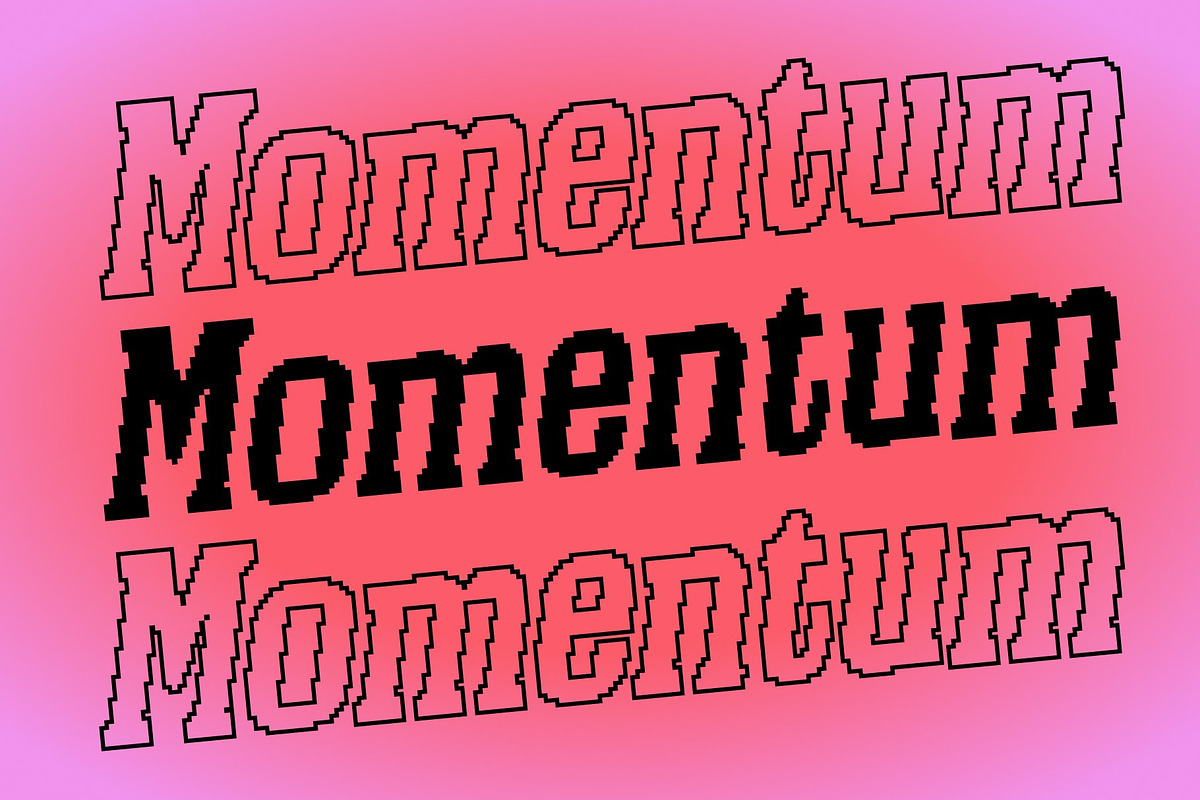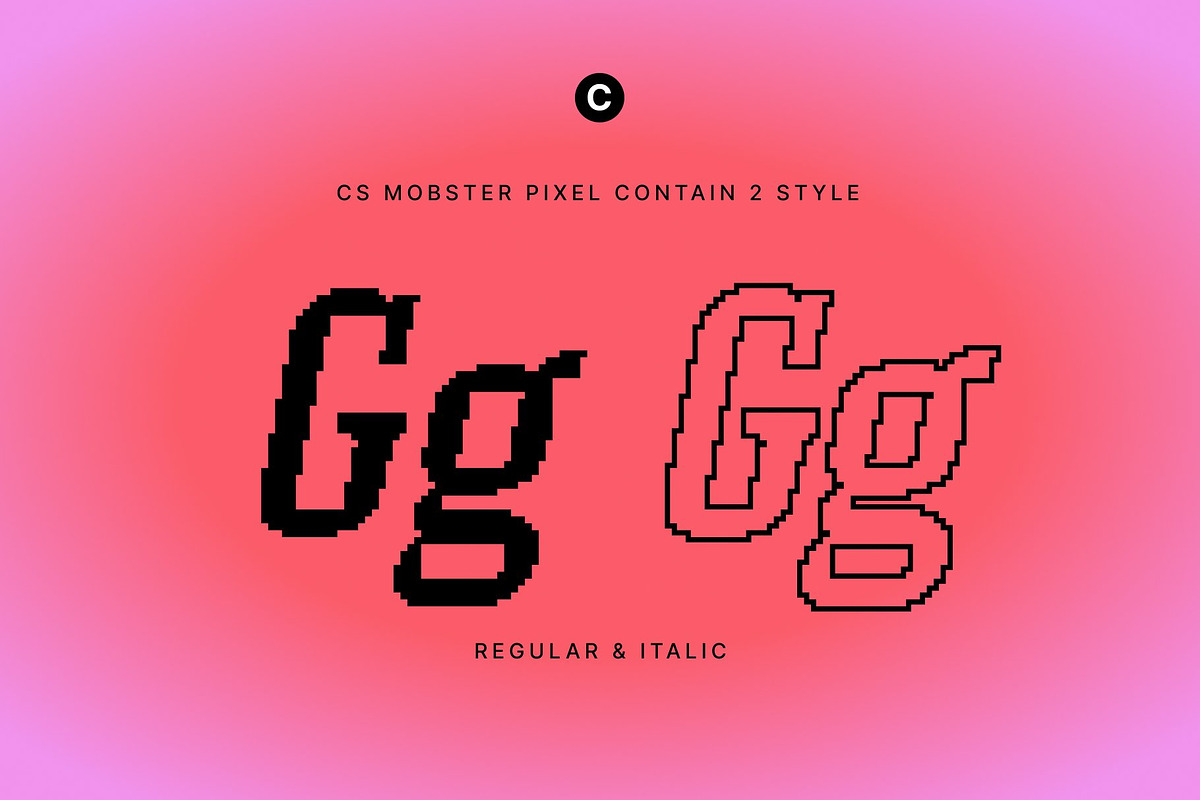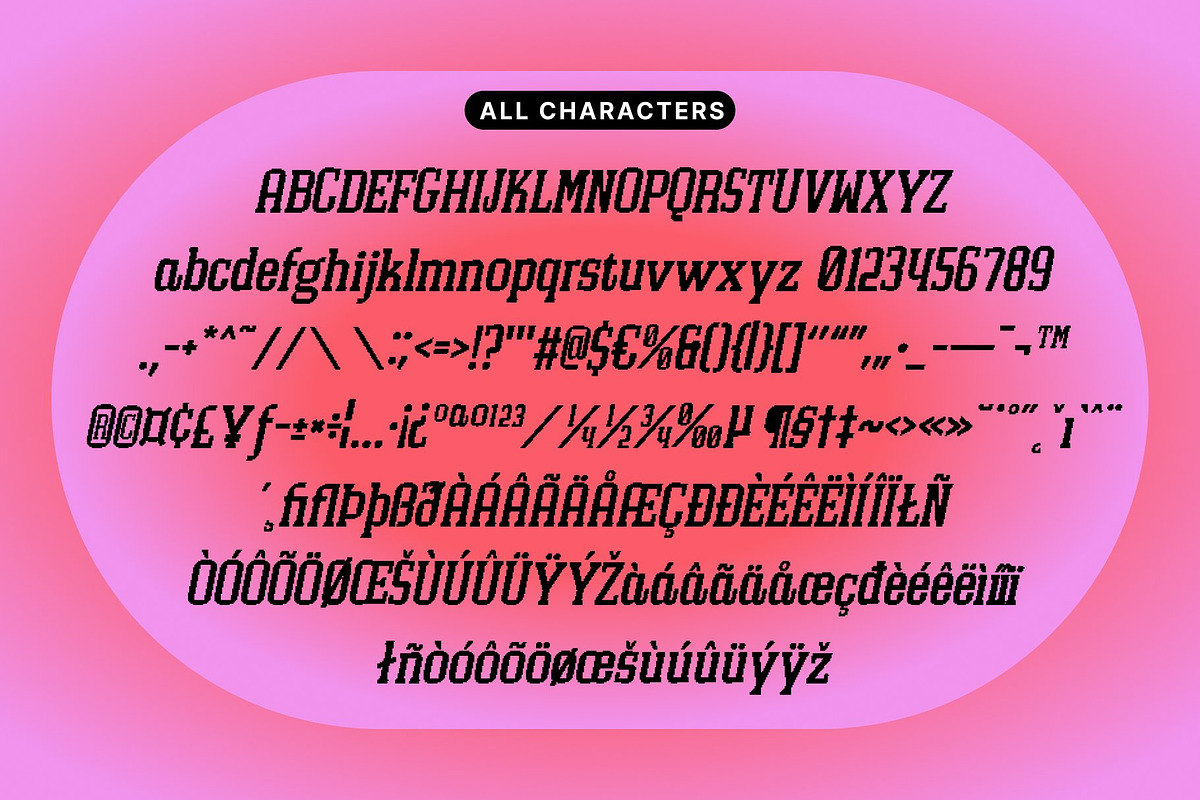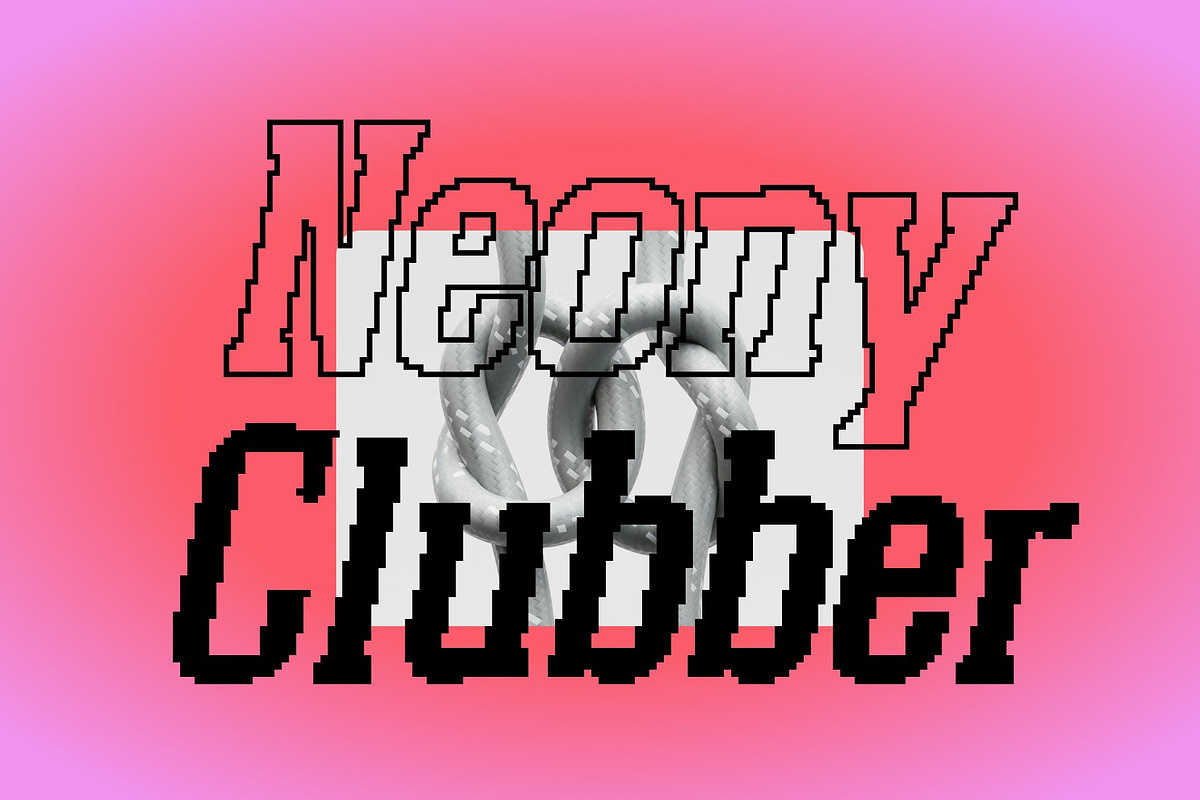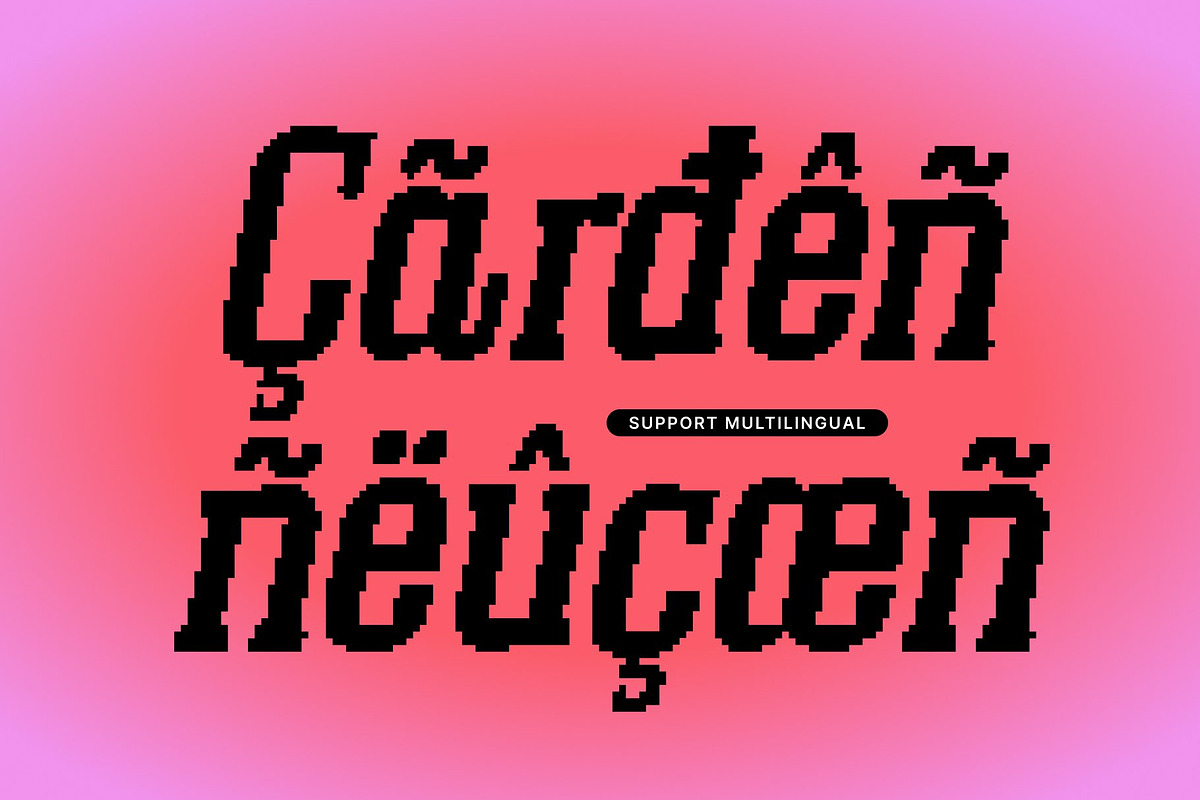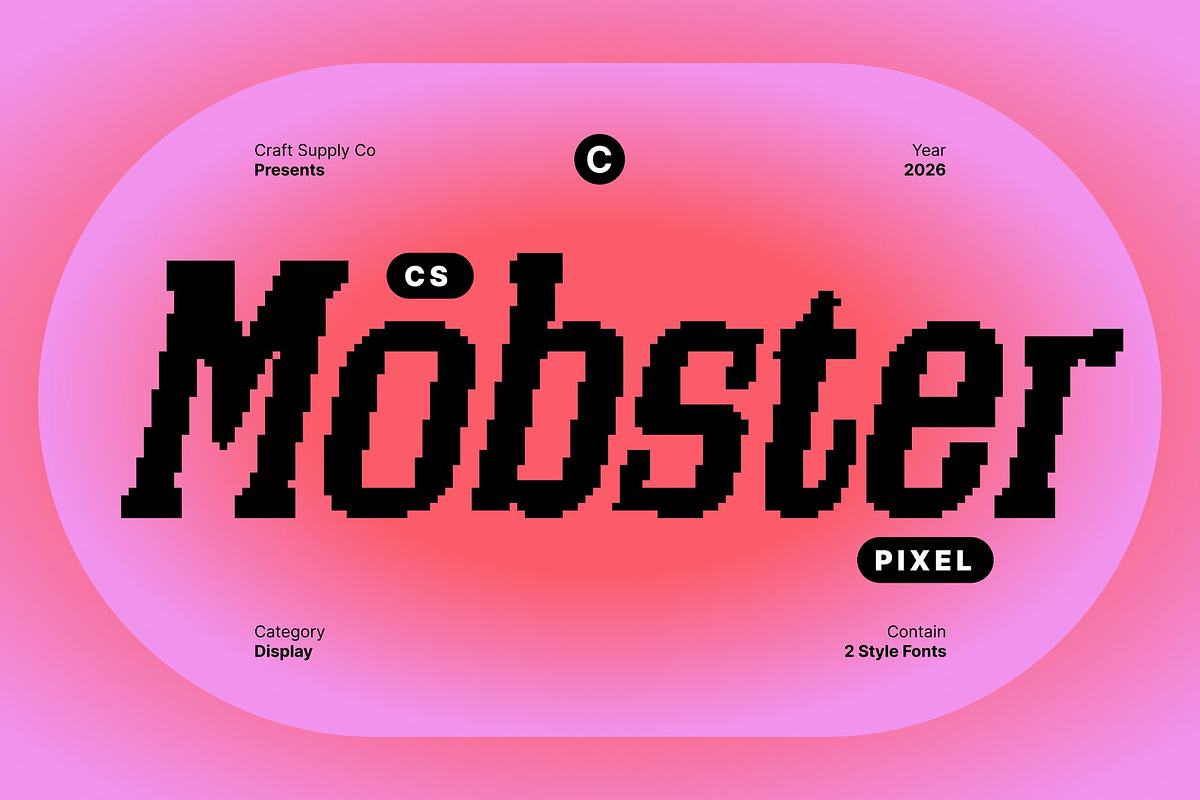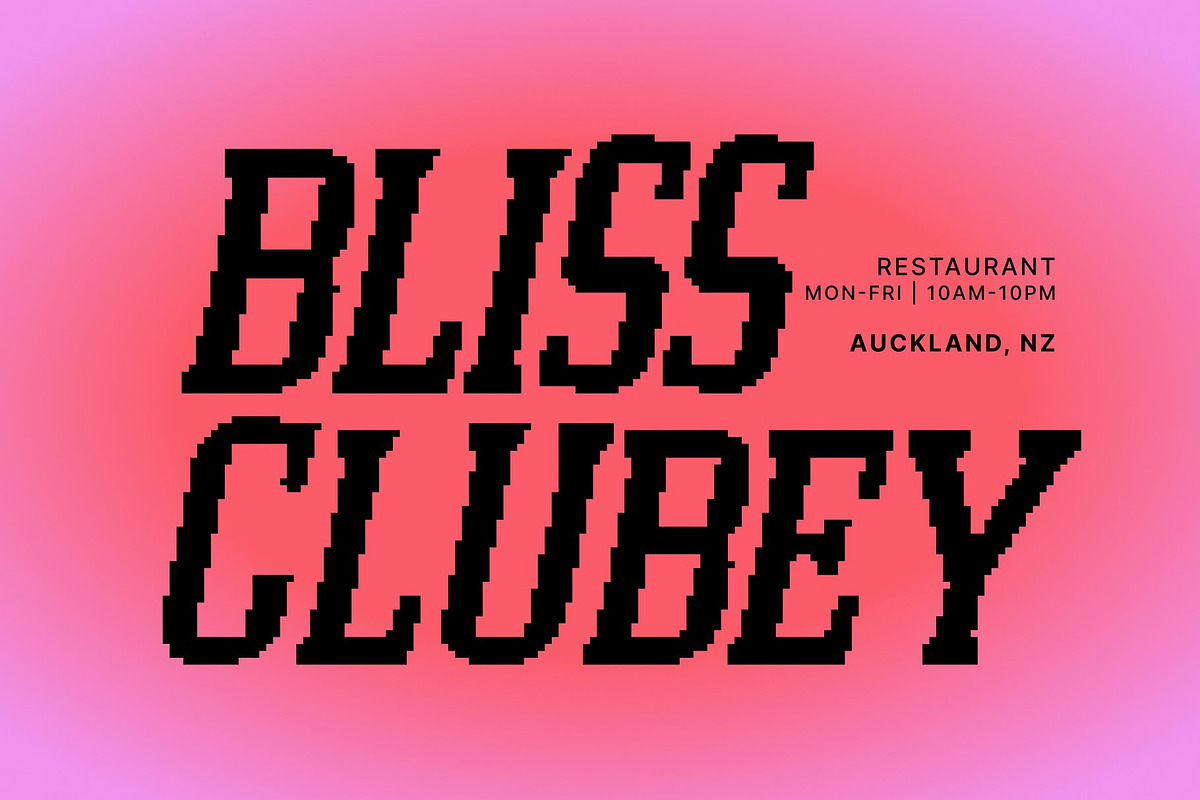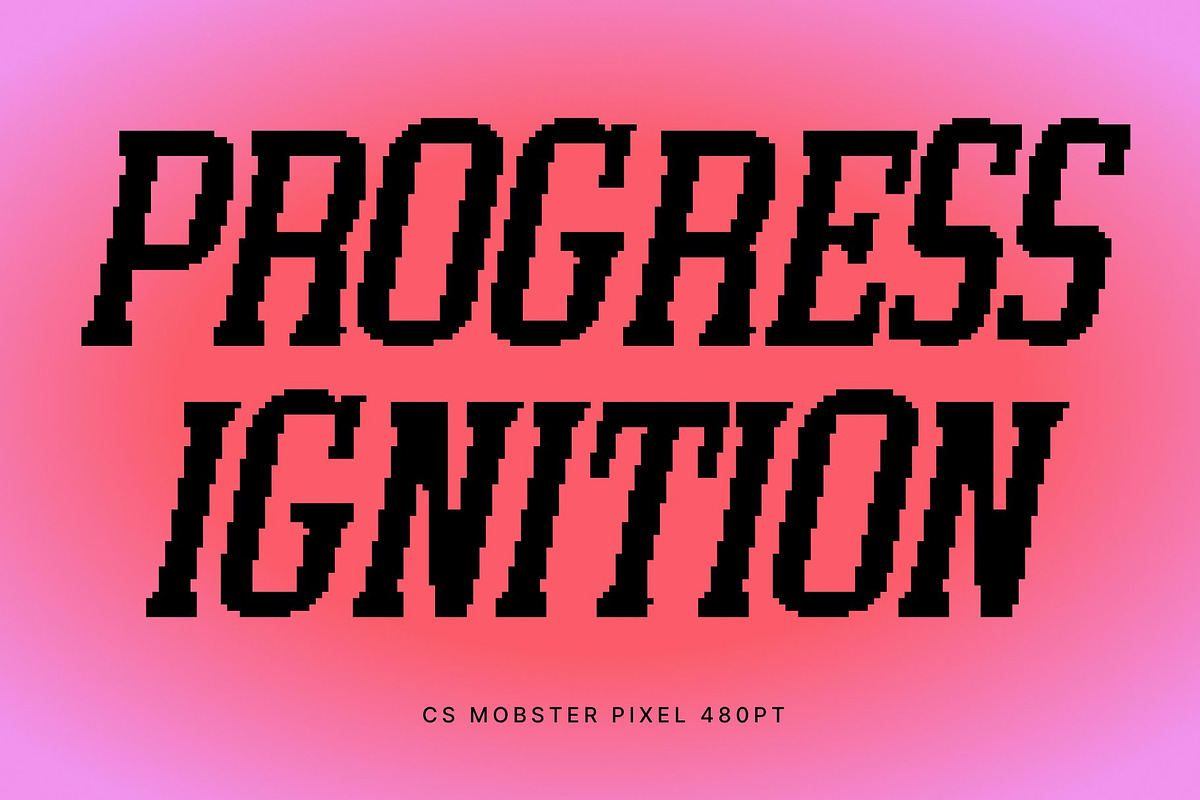
CS Mobster Pixel
CS Mobster Pixel – Slab Serif Font with Timeless Digital Strength
Classic Slab Serif Display Font with Pixel Precision This is a slab serif display font built to deliver clarity, strength, and enduring appeal, enhanced with subtle pixel-inspired construction. Drawing inspiration from mid-19th century typography, it features generous slab serifs and solid forms refined through digital structure. The result is a dependable, confident typeface with a modern technological edge.
Neat Letterforms with Strong Pixel Structure Each character is crafted with clear proportions, consistent spacing, and carefully integrated pixel geometry. The sturdy slab serifs provide a grounded, hard-working presence, while clean digital detailing keeps the font polished and contemporary. This balance allows this font to stand out without feeling heavy or overly decorative.
Vintage Heritage with Modern Digital Versatility Rooted in early slab serif traditions, this font carries historical authority while adapting seamlessly to modern design needs. The pixel approach introduces subtle precision and clarity, ensuring the font feels trustworthy, relevant, and versatile across both print and digital layouts.
Ideal for Headlines, Logos, and Strong Branding Perfect for headlines, logos, packaging, editorial designs, jackets, and branding systems, this font delivers bold visibility with refined confidence. Its slab serif strength combined with digital clarity ensures your message feels powerful, reliable, and timeless.